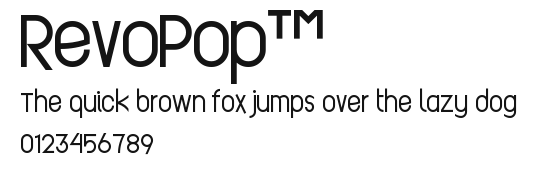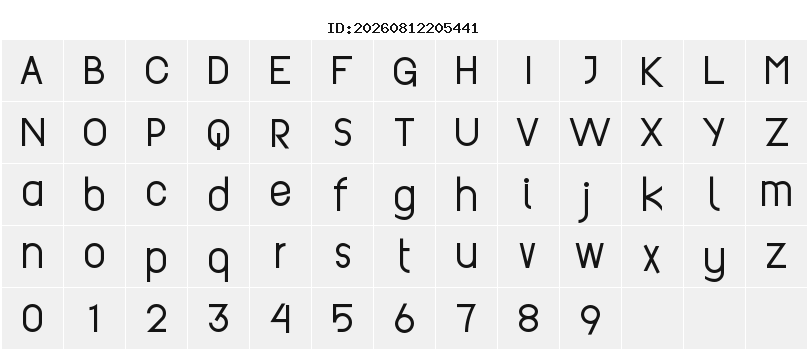
• Font Name: RevoPop™
• Full Font Name: RevoPop™
• Designer: Yun González
About RevoPop™.ttf
RevoPop™.ttf is a modern, elegant sans-serif font designed for ultimate readability and visual harmony. Perfect for branding, headlines, web design, and print materials.